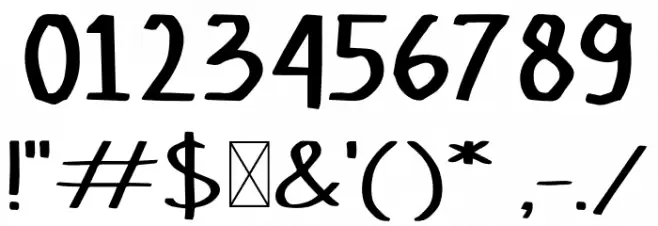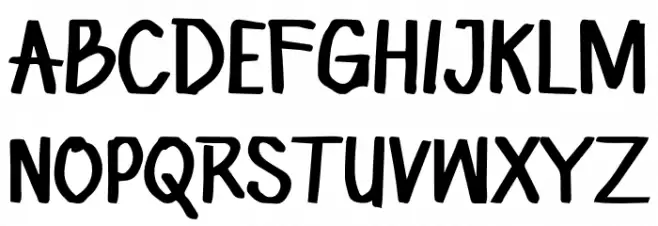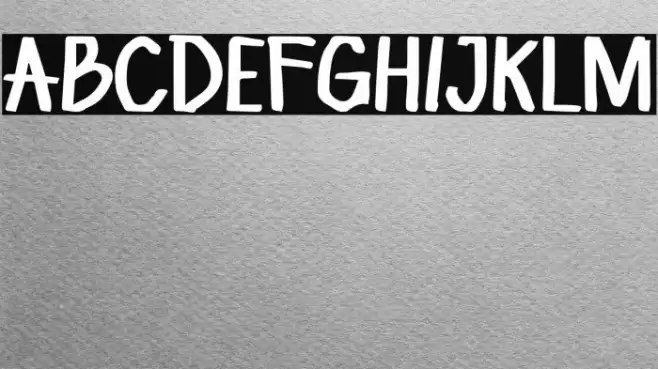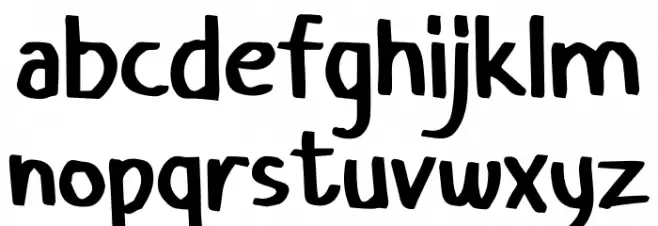
Awalan Boxing Font
Awalan Boxing Description
A playful, informal handwritten style font with rounded, irregular shapes and a casual appearance.
| Overall Style | Casual, Playful, Informal |
| Use Case | Headlines, Body text, Logos, Invitations |